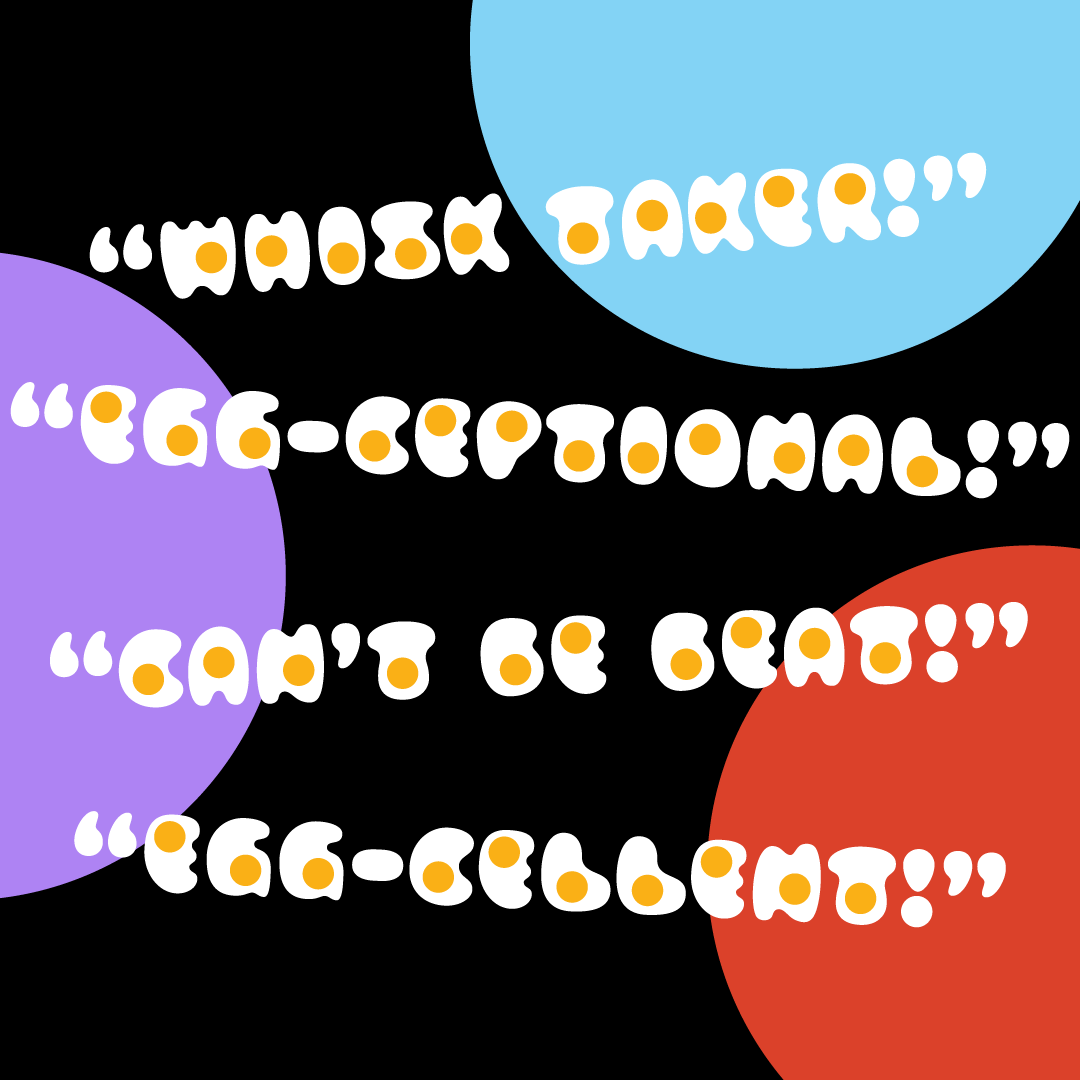
Week 9: Yolker
Yolker, smoker, midnight toker
Welcome to my silly little newsletter with my silly little egg font!!
I have to admit that I was a little surprised at how many people responded to my post yesterday! I honestly thought this week was going to be a wash. Sometimes you just need a weird little palette cleanser after making a sans. Sans are just so intense and serious!!
The whole concept of an egg font came to me a couple months ago in that moment right before you drift to sleep. I had to shake myself awake so I could write it down. When I was skimming my list this week, I saw “egg font” and I did a quick google. I noticed that there was only a couple of egg fonts…? Now there’s at least three!
I really wanted Yolker to look like when you crack an egg over the pan and the egg white spreads out. I tried to keep the visual volume of the egg whites the same so that it would feel a little more consistent and realistic. I feel like there’s a lot of potential here for some fun styles — deviled, poached, scrambled, egg salad(!!!), etc. Yolker is toeing the legibility line a bit. The letters on their own are almost unrecognizable and require a full word for context. I’m really surprised that your brain can still read this even though there’s a yolk “counter” in each letter. I was really convinced it wasn’t going to work when I was digitizing it. Turns out our 40,000 year old noodles are good for something.
I’m picturing this on a diner’s breakfast menu, paired with Taters by (bffl) Tommi Sharp, or just as fun little egg illustrations!
P.s. — If you want to add color to the yolks in Illustrator: outline the text > ungroup > release compound path > select yokes and add color! <3